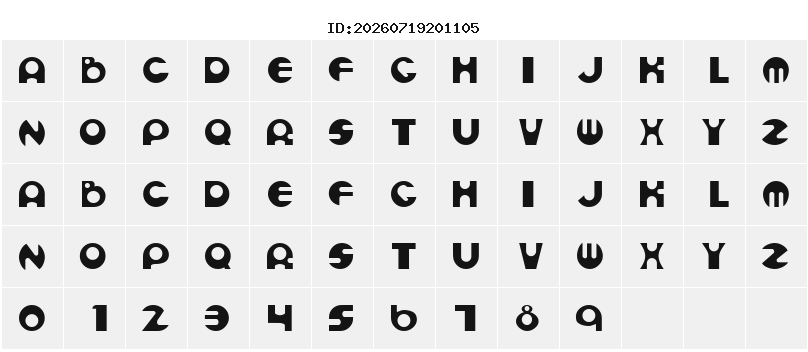
Espheres Preview
• Font Name: Espheres
• Font ID: Altsys Metamorphosis:Espheres Regular
• Full Font Name: Espheres Regular
• Version: Altsys Metamorphosis:4/16/92
• PostScript Name: Espheres Regular
About Espheres.ttf
Espheres.ttf is a modern, elegant sans-serif font designed for ultimate readability and visual harmony. Perfect for branding, headlines, web design, and print materials.